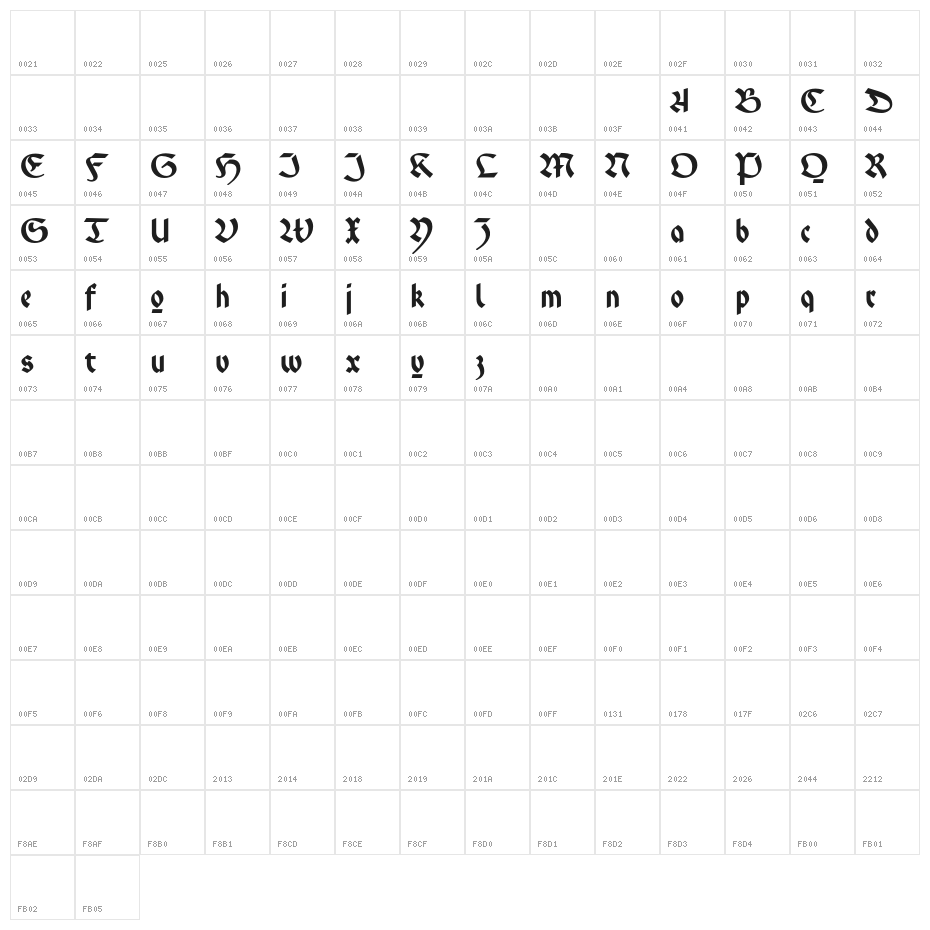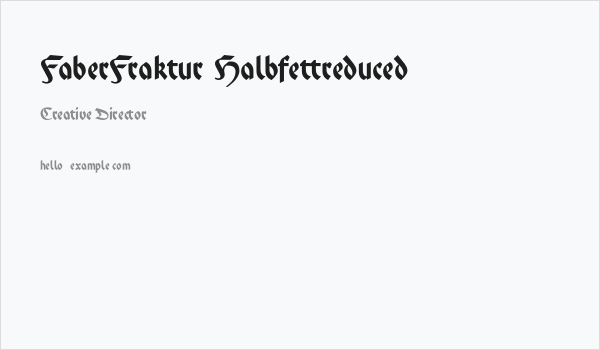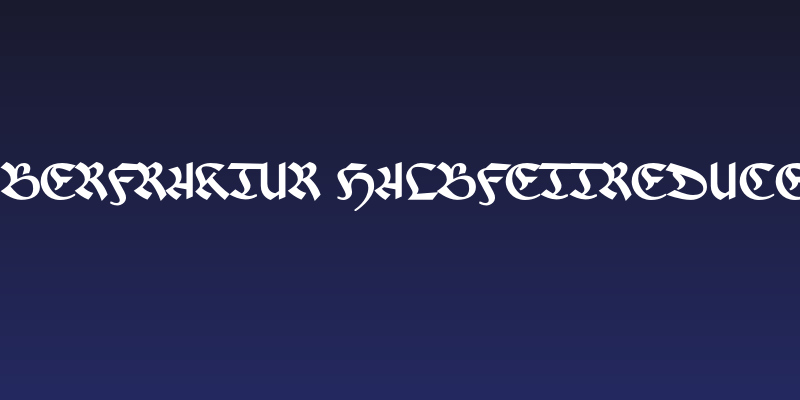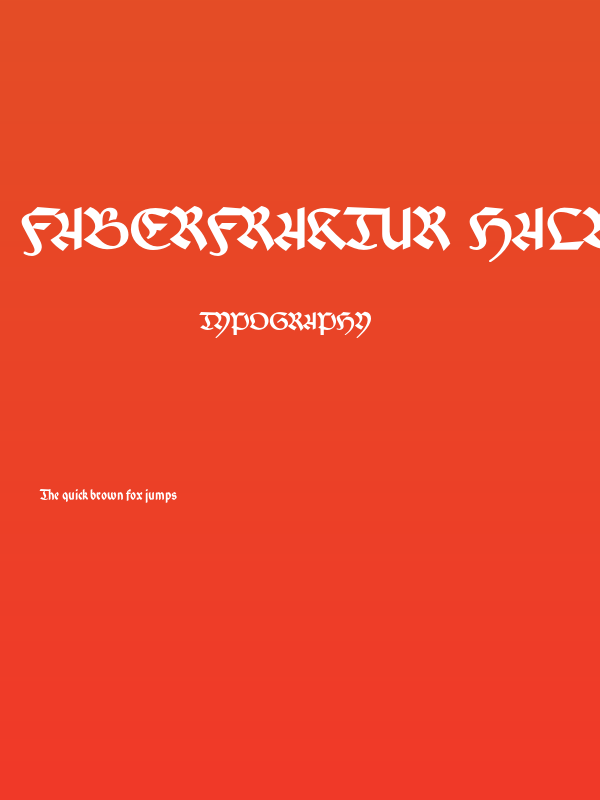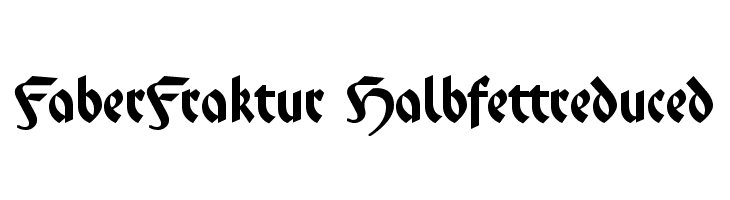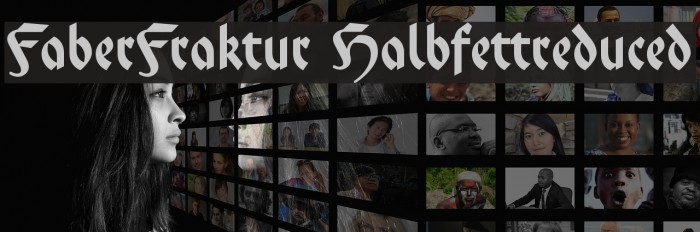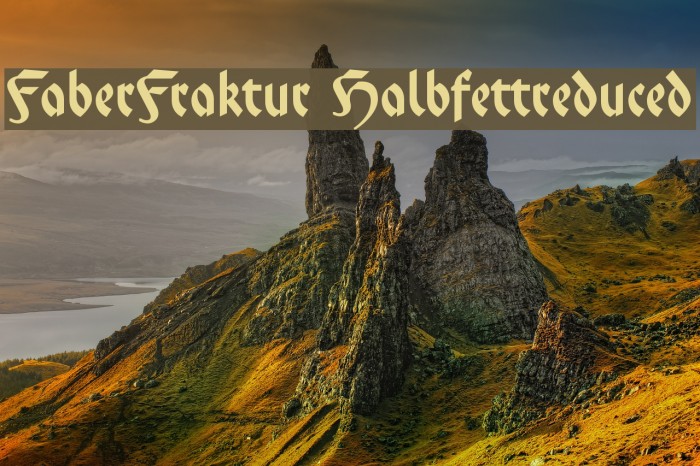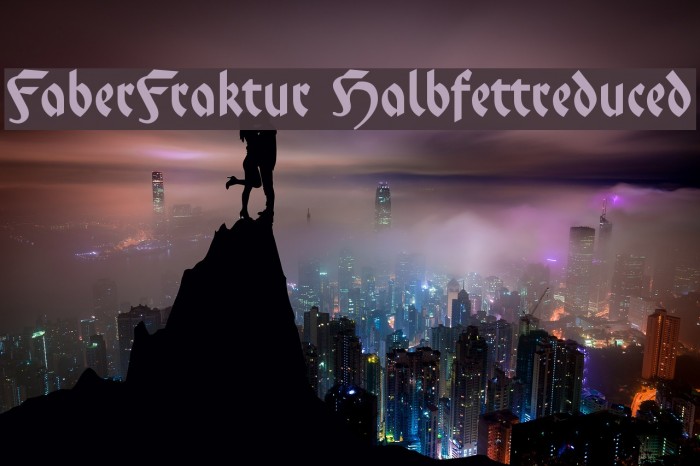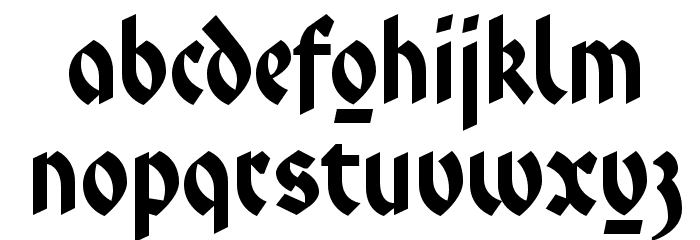
FaberFraktur-Halbfettreduced Font
FaberFraktur-Halbfettreduced Description
This font features a traditional blackletter style, characterized by its bold, angular strokes and intricate detailing. The uppercase letters exhibit a strong, commanding presence with sharp edges and pointed serifs, while the lowercase letters maintain a consistent flow with a slightly more rounded appearance. The overall design is reminiscent of medieval script, offering a sense of historical elegance and sophistication. The font's unique aesthetic is further enhanced by its high contrast between thick and thin strokes, creating a dramatic visual impact. This style is well-suited for projects that require a touch of vintage or gothic flair.
| Overall Style | Vintage |
| Use Case | Logos, Headlines, Decorative text |
| Proposed Projects | Ideal for use in branding, posters, book covers, and any design that seeks a historical or gothic touch. |